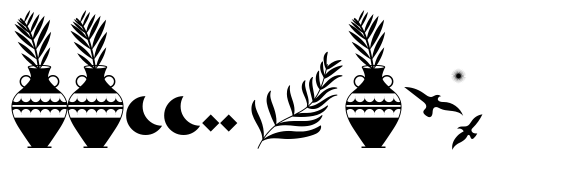
Le Atallier
by Hishand Studio
The Le Atallier Font Family was designed by Putu Dody Permana and published by Hishand Studio. Le Atallier contains 3 styles and family package options. More about this family
Introducing Le Atallier an elegant sans serif font that look classy. Perfect for Logo brand, product packaging, advertisement, social media post, clothing brand, magazine headers and many more complete with
• ligatures
• alternates
• regular
• italic
• icon
• kerning
• multilingual support
Designers: Putu Dody Permana
Foundry: Hishand Studio